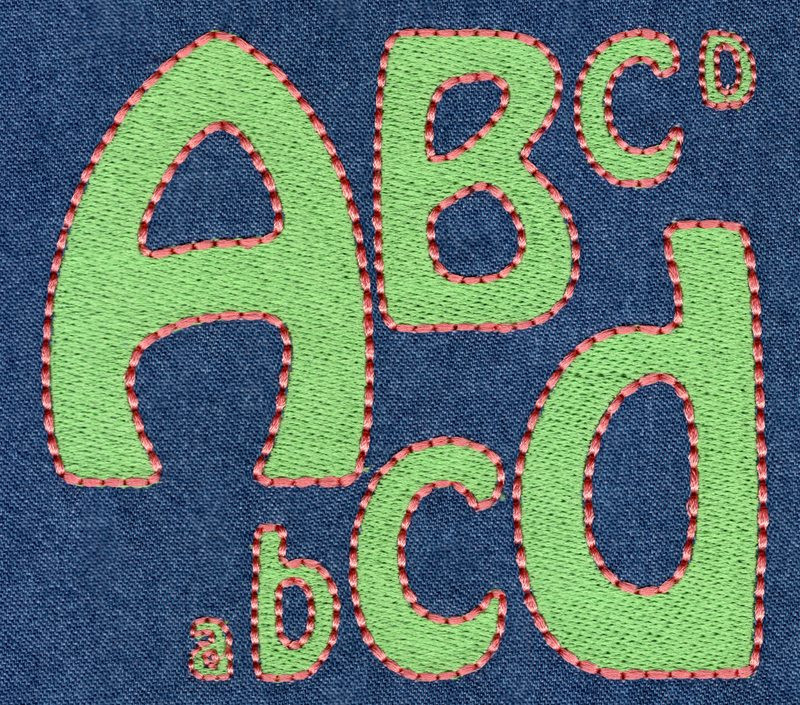
445 Hobo Fill & Floss Font
Hobo Fill & Floss Font comes in 0.5", 1", 2" and 3" heights based on the capital "A". All sizes are finished in Fill Stitch with Floss Stitch outlines; Floss Stitch stitches out on all embroidery machines using standard embroidery thread. All size are included in the purchase price and include uppercase letters, lowercase letters, numbers and four punctuation marks.